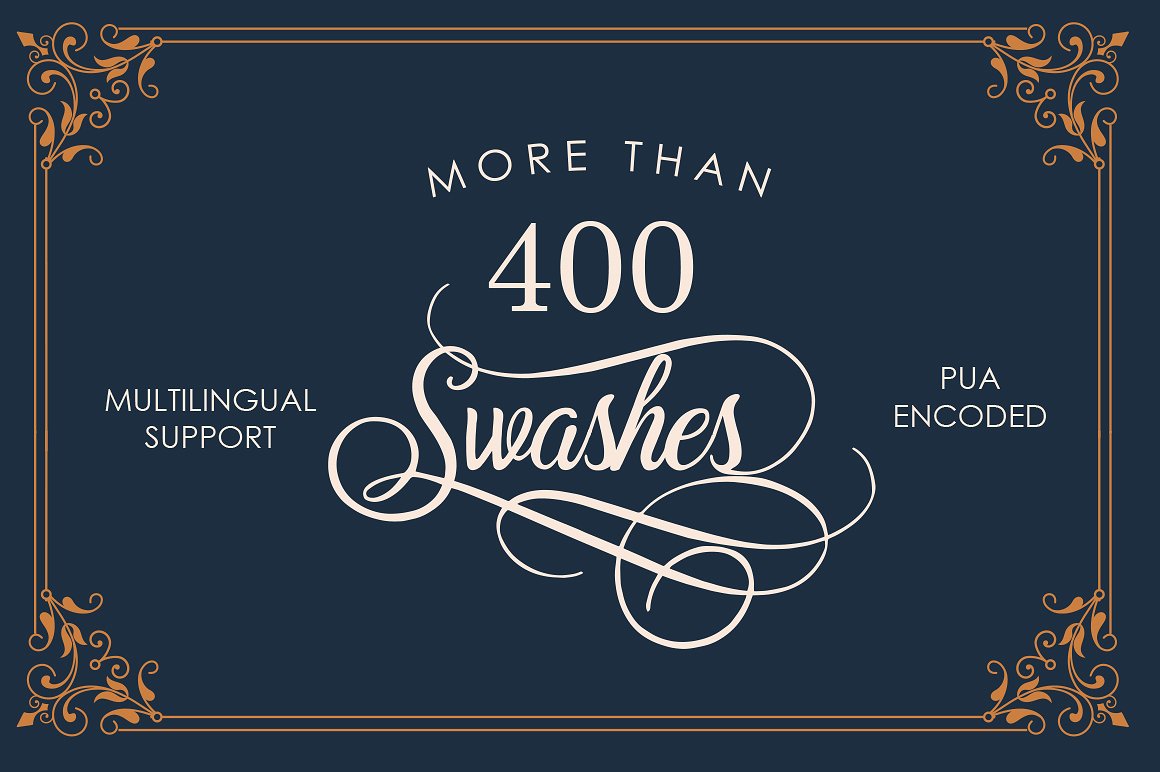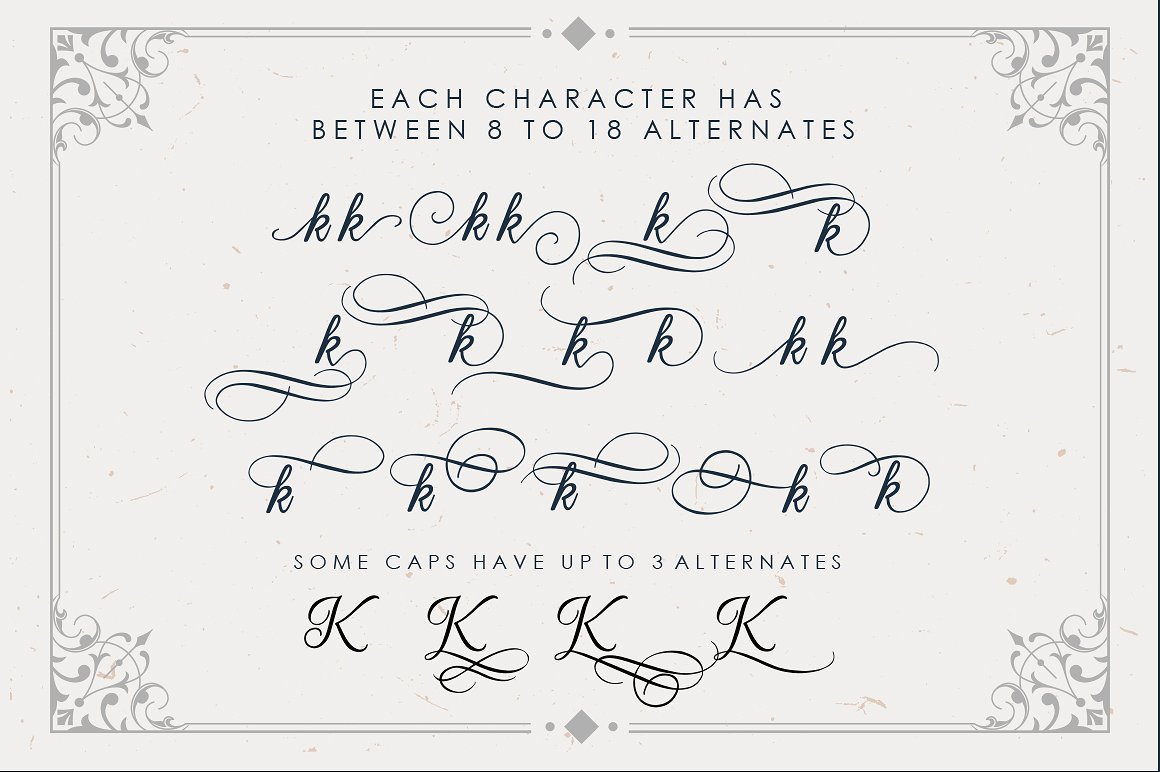
About Beradon Font
Beradon Script is an elegant script created by BlackCatsMedia.
This stunning font comes with more than 400 alternatives. It also features a bonus font that contains stunning frames & dividers, to completely finish your project.
With its classical look, Beradon is suitable for many different types of projects. From corporate branding to personal invites, this stunning font has got you covered.